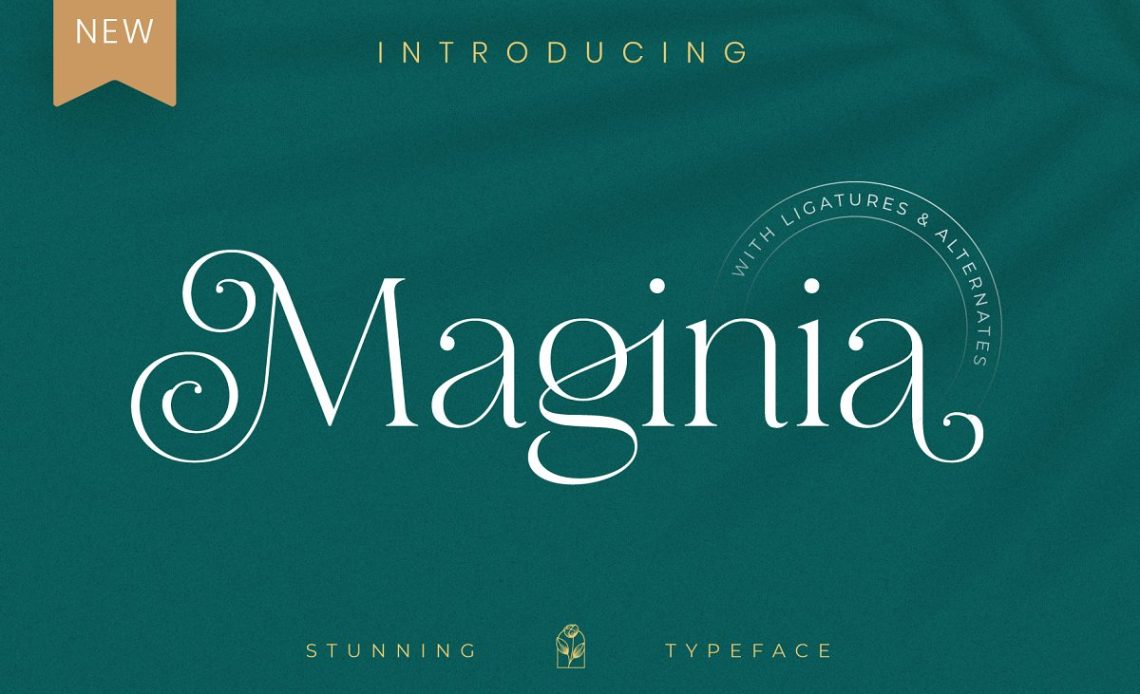
Are you looking for the perfect font to elevate your project and make it stand out? Look no further than Maginia Font, the best font for song titles! Created by Yusuf Niki Syahroni, Maginia Font is a beautiful and unique serif font that will make your project look like magic.
Not only is Maginia Font visually stunning, but it is also highly versatile. With many alternatives and ligatures, this font can be applied to a wide range of formal forms such as invitations, labels, logos, magazines, books, greeting and wedding cards, packaging, fashion, makeup, stationery, novels, and labels. Whatever your purpose, Maginia Font has got you covered.
With Maginia Font, you can take your project to the next level and truly make it stand out from the crowd. Imagine the impact that a font as beautiful and unique as Maginia could have on your next project. It will capture the attention of your audience and make a lasting impression.
Whether you're a designer, marketer, or content creator, Maginia Font is the perfect choice for your next project. Download it today and experience the magic for yourself. Don't settle for a boring font that doesn't capture the essence of your project. Choose Maginia Font and take your creativity to new heights!